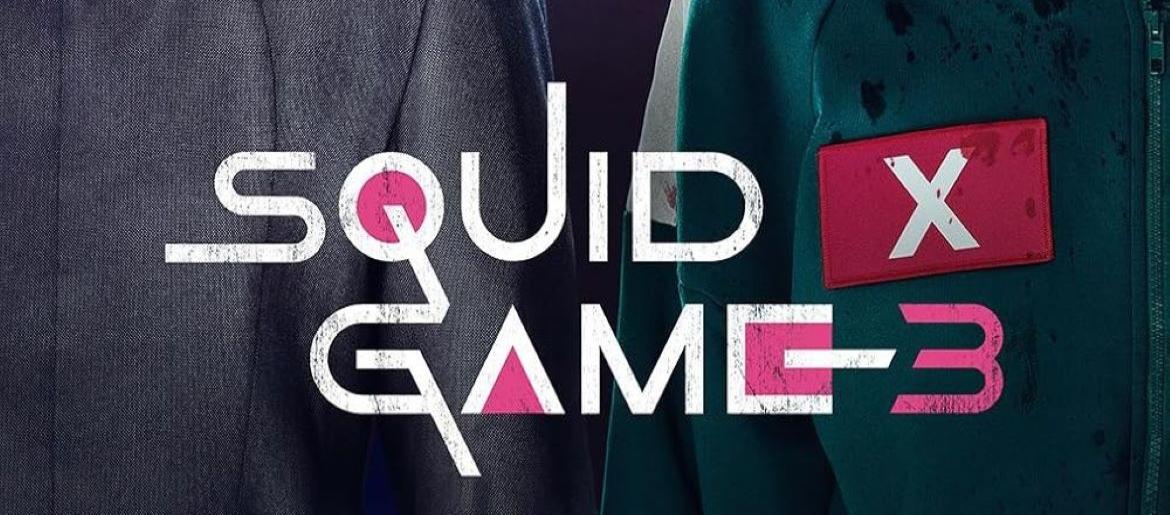
Squid Game Font
The Squid Game font is bold, geometric, and instantly tied to the intense atmosphere of the series. Its sharp lines, clean shapes, and iconic use of circles, triangles, and squares reflect the show’s themes of strategy, mystery, and high-stakes danger. While the original font style is commercial, this free alternative captures the same striking, minimal energy—perfect for posters, edits, thumbnails, and fan art inspired by the show’s chilling aesthetic.
About Squid Game
Squid Game, released in 2021, became a global cultural phenomenon. The series follows hundreds of desperate contestants forced to play deadly versions of childhood games for a massive cash prize. Blending survival, morality, and psychological tension, the show has left a lasting impact on entertainment and design alike.